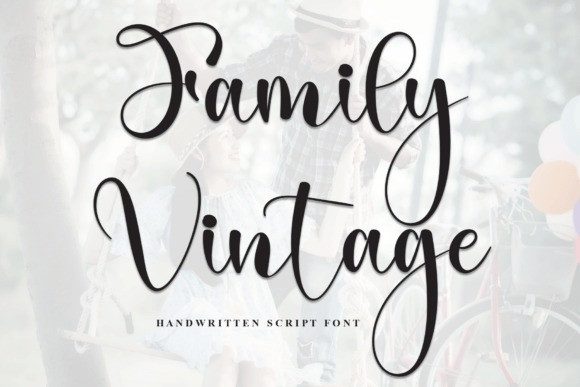
Family Vintage Script Font
Family Vintage Script Font is a charming handwritten font with a classic, old-time feel. Its soft, playful strokes make it perfect for creating warm, nostalgic designs like invitations, cards, and logos. Easy to read and full of personality, it adds a unique touch to any project.